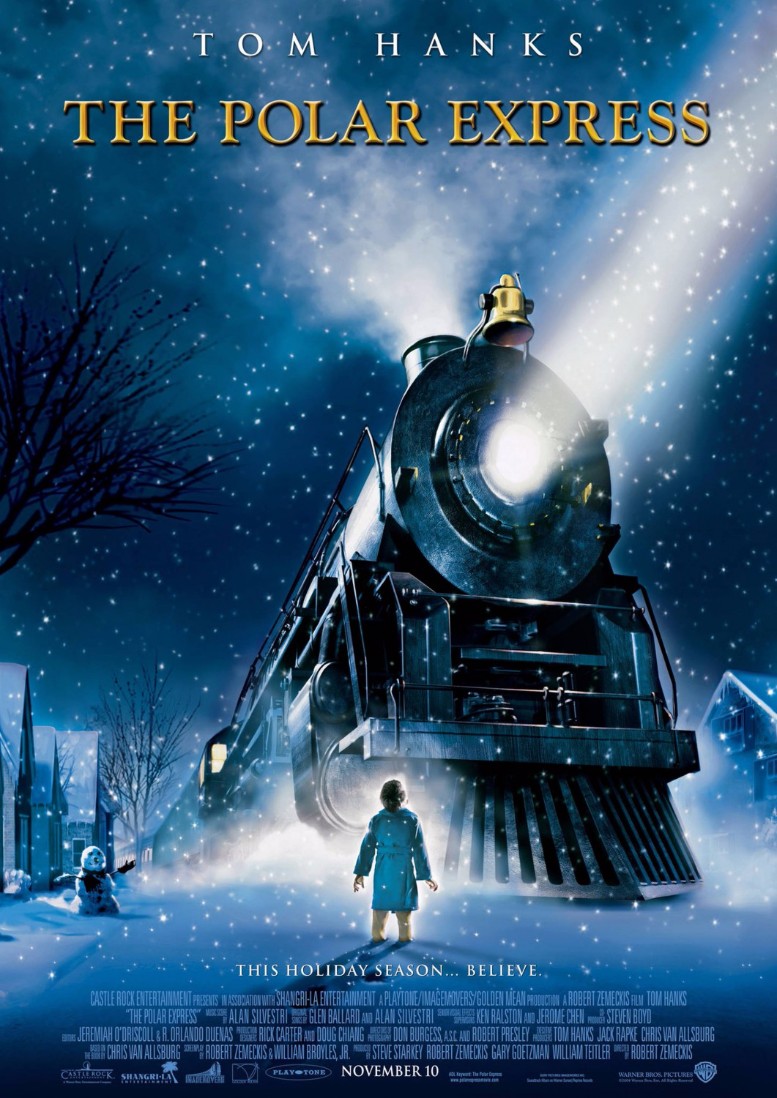
The Polar Express Font
FantasyThe Polar Express is a 2004 animated film based on the children's book by Chris Van Allsburg. It follows a young boy who takes a magical train ride to the North Pole to meet Santa Claus and experience the magic of Christmas.
"The Polar Expres" title on the poster closely resembles the Goudy Old Style Bold font from Bitstream. Goudy Old Style is a traditional serif font that was designed by Frederic W. Goudy in 1915 for ATF. A free alternative to Bitstream's font is Goudy Agency Medium by OPTIFont, which is available for download in Fonts Used Section.